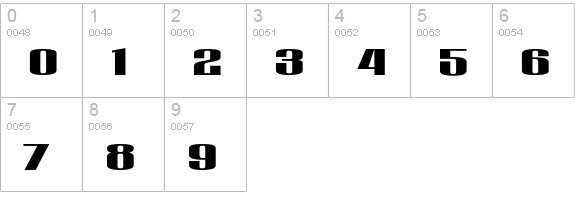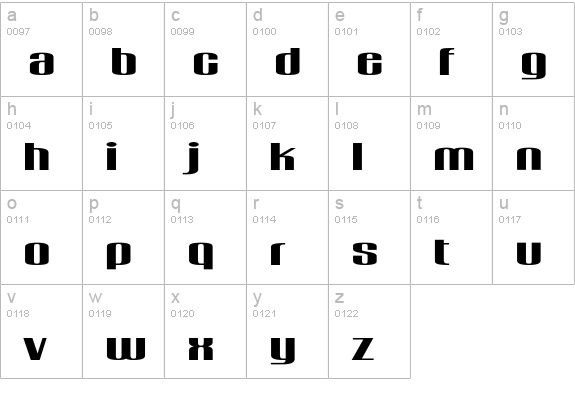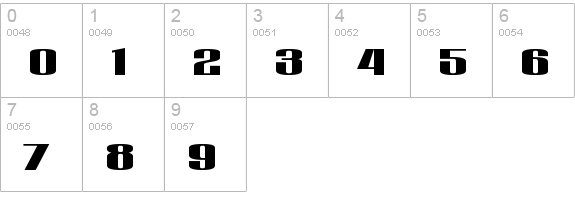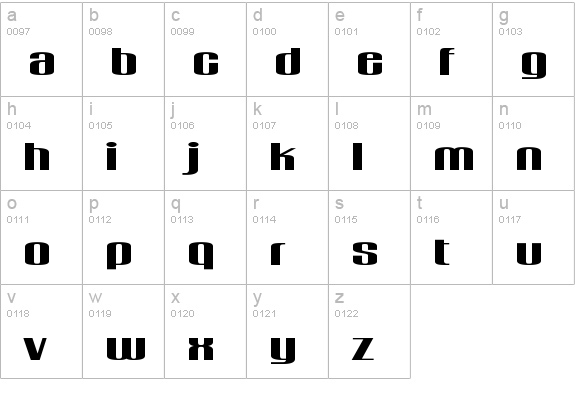
Introducing Gogosquat font - a unique and stylish typeface that will bring a touch of modern elegance to your design projects. With its clean lines and bold strokes, Gogosquat exudes confidence and sophistication. This versatile font is perfect for a wide range of applications, from branding and advertising to social media graphics and website design. What sets Gogosquat apart is not just its striking appearance, but also the fact that it is available for free download at FontsMarket.com. That's right, you can enhance your designs with this stunning font without breaking the bank. So why wait? Download Gogosquat today and take your projects to the next level with this eye-catching and contemporary typeface.